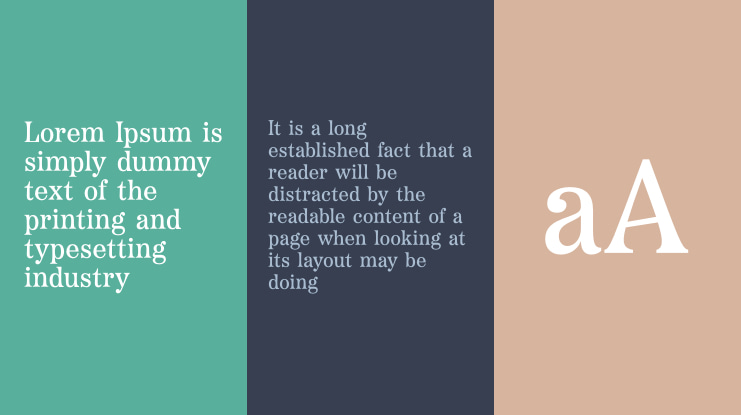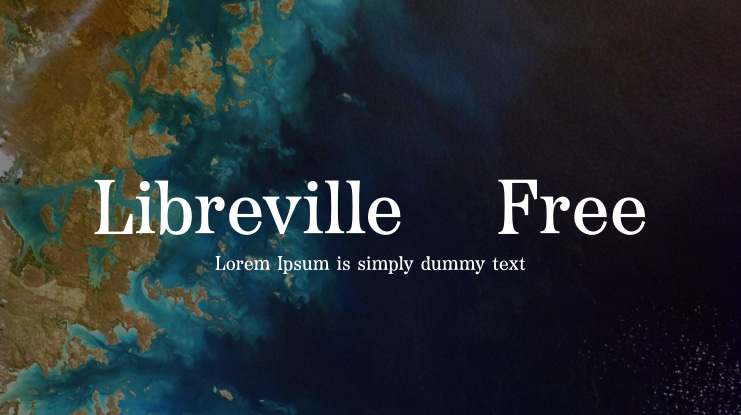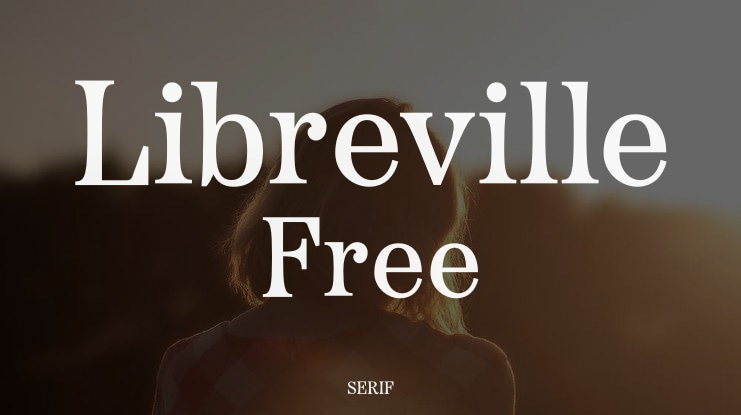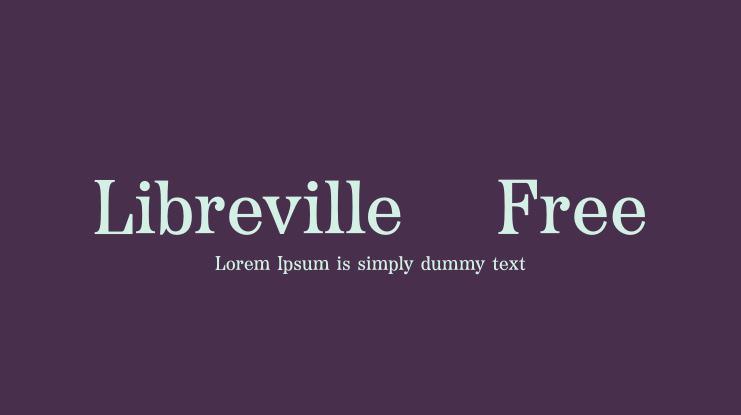
Libreville - Free Font
Hello, design enthusiasts! Allow me to present "Libreville" - a contemporary serif font that seamlessly blends style, readability, and uniqueness.
Libreville is a modern serif typeface designed to meet contemporary design demands. With its sleek and elegant characters, this font effortlessly combines sophistication with excellent readability. The unique aspects of Libreville set it apart, making it a standout choice for a wide range of design projects.
Key Features:
- **Contemporary Elegance:** Libreville exudes contemporary elegance, making it an ideal choice for projects that demand a touch of modern sophistication.
- **Excellent Readability:** The font is meticulously crafted to ensure optimal readability, making it suitable for various design applications, from editorial work to branding.
- **Unique Characteristics:** Libreville brings a unique flair to serif typography, allowing your designs to stand out with a distinctive touch.
- **Versatility:** Whether applied to branding, editorial design, or any creative project, Libreville's versatility makes it adaptable to various design needs.